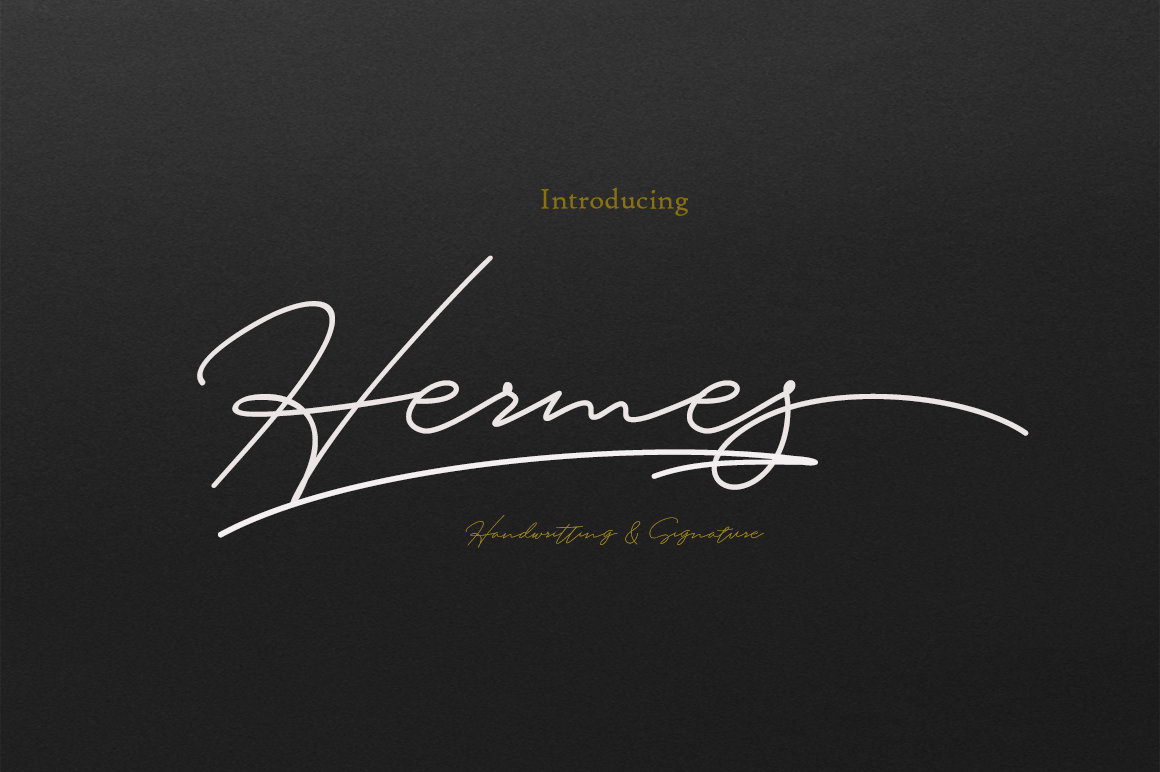
Hermes//Handwritting Font
Introducing!!
Hermes mono line is the font style handmade dancing and then live trace to have unique forms of calligraphy, the writing style is very natural.